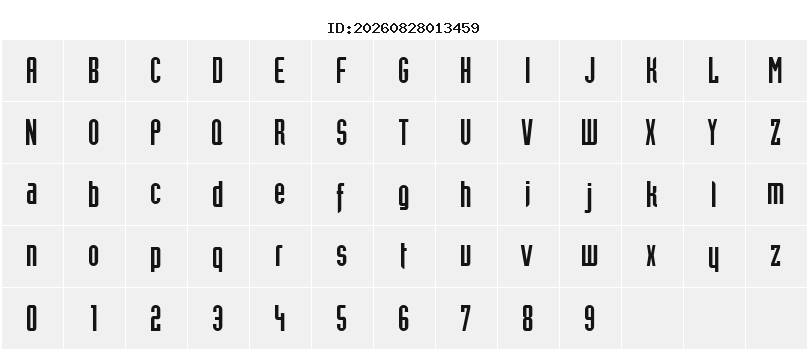
• Font Name: Trust This One
• Full Font Name: Trust This One
About Trust This One.ttf
Trust This One.ttf is a modern, elegant sans-serif font designed for ultimate readability and visual harmony. Perfect for branding, headlines, web design, and print materials.